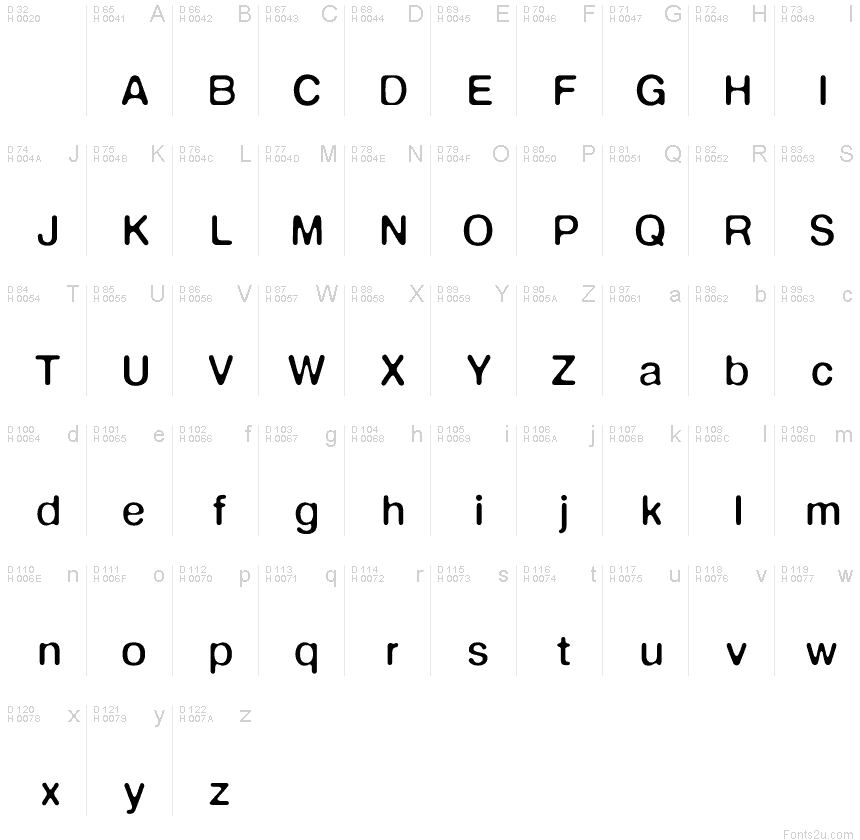
DeFonteNormale
DeFonte font by Ingo Zimmermann is a free eroded display font that combines soft, rounded shapes with a confident, chunky presence. The letters feel almost pillowy and inky at the same time, with generous curves and tight internal spacing that pull the wordmark together into a compact, friendly block of color. Its smooth silhouettes make it read as approachable and modern rather than harsh or technical.
Using DeFonte, your titles and logos gain a relaxed, playful energy that still holds up in professional contexts. This free font works beautifully for branding, packaging, posters, social graphics, event flyers, and kid-focused projects where warmth and clarity both matter. For longer supporting text, pair it with a simple sans serif in a lighter weight and keep DeFonte at larger sizes so its rounded character shapes can really shine.